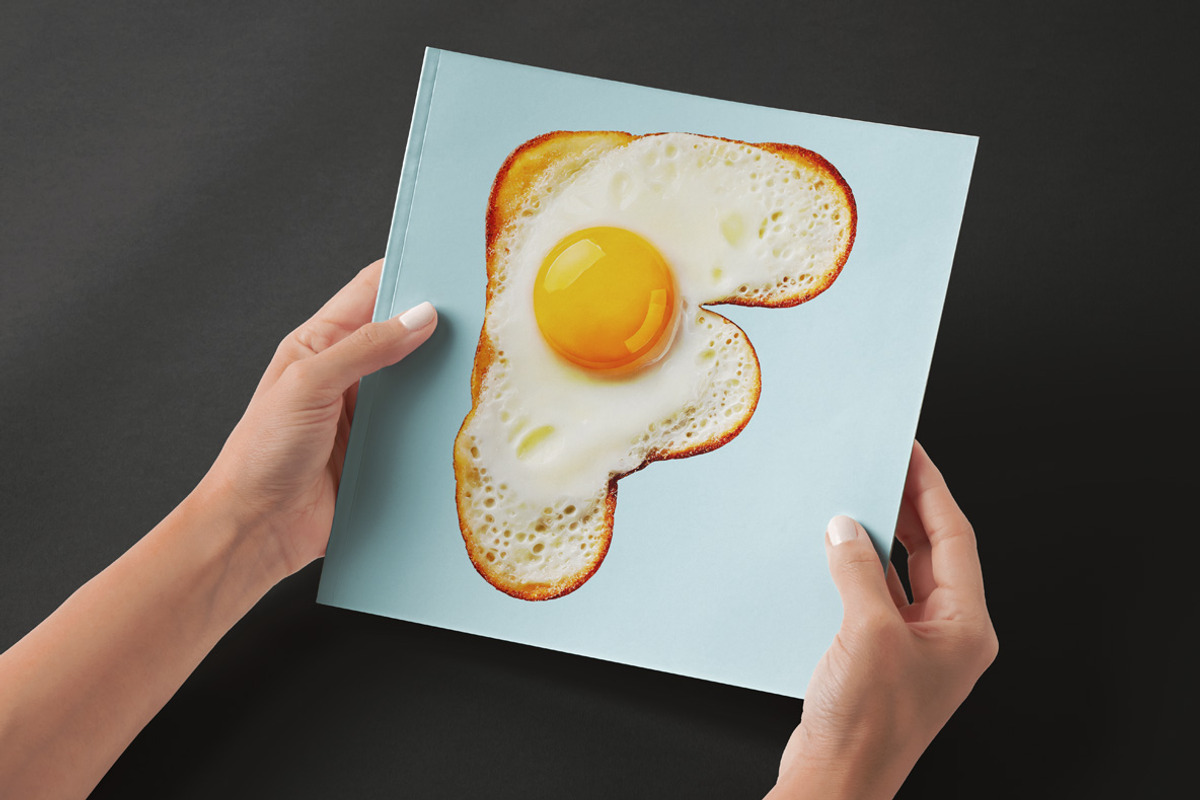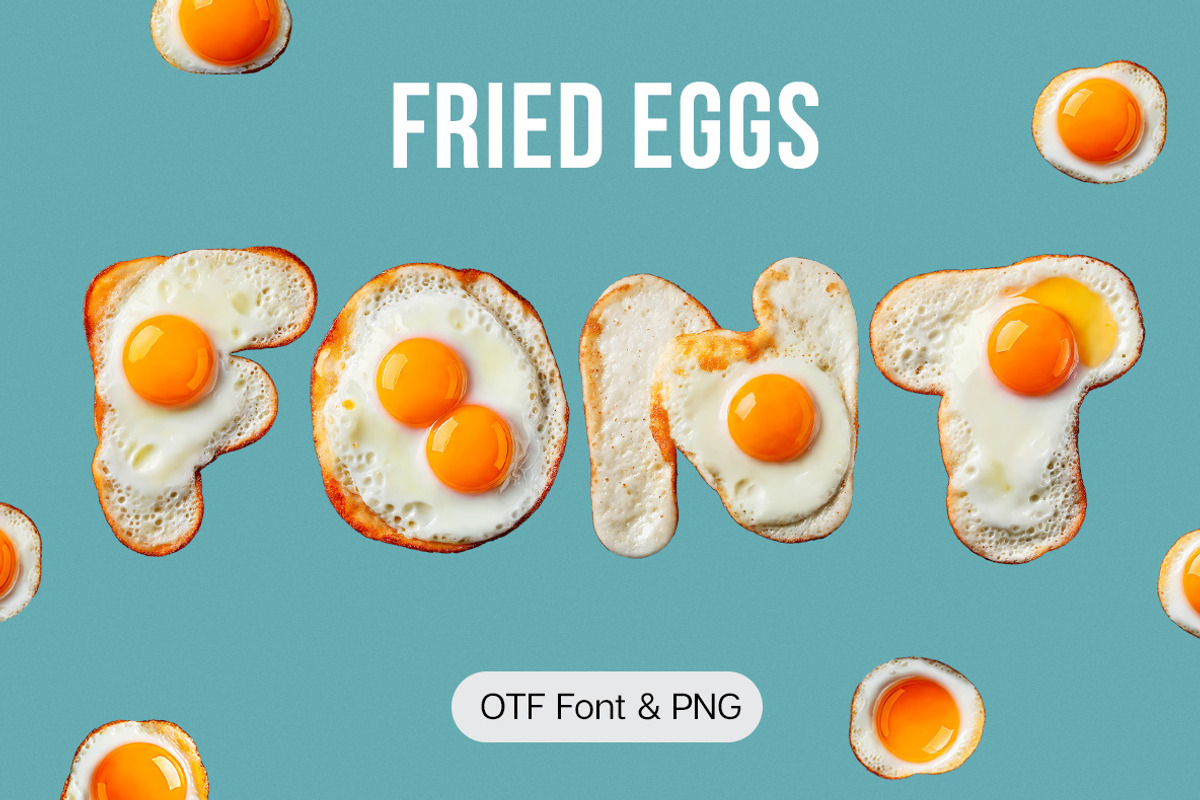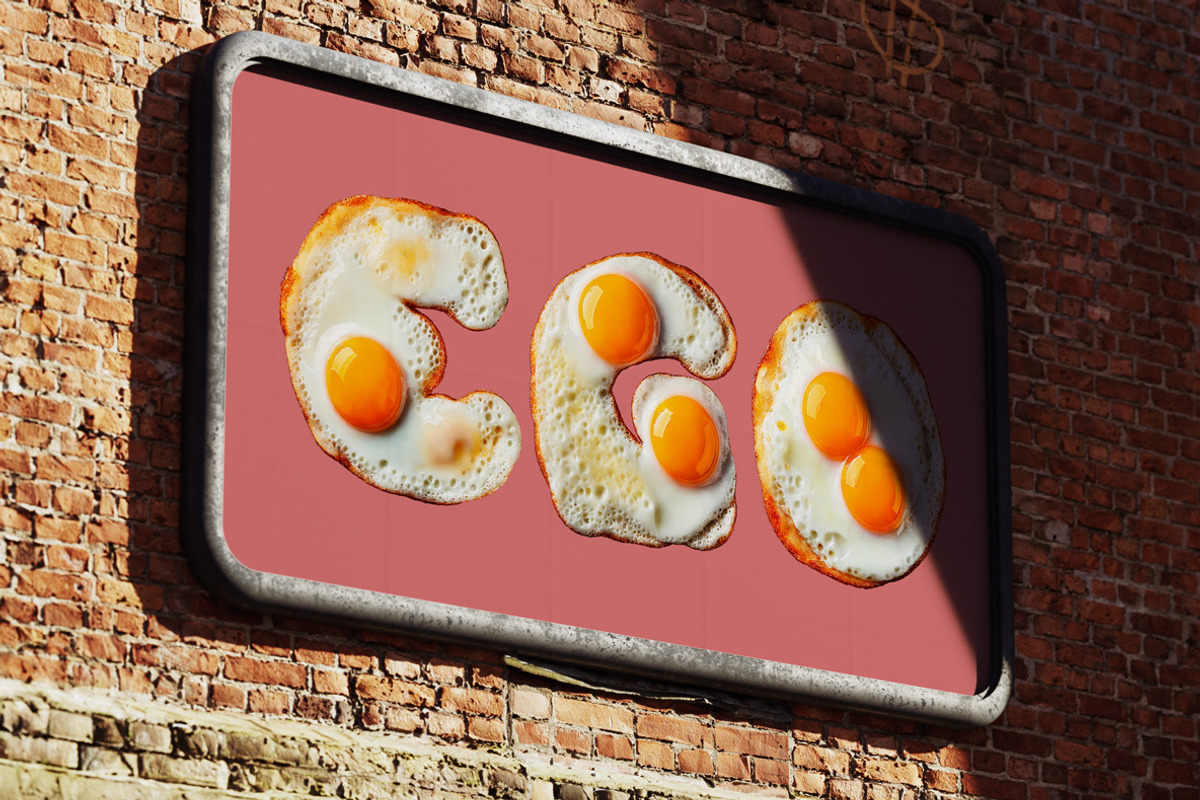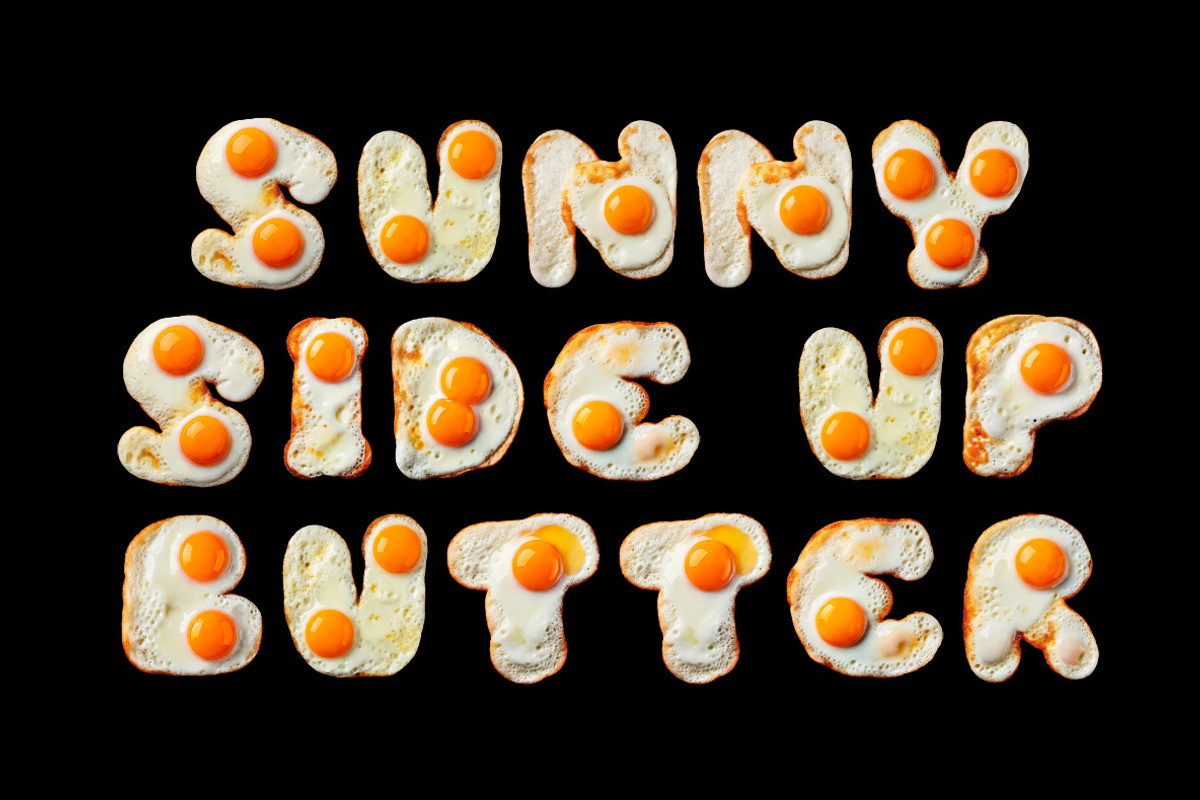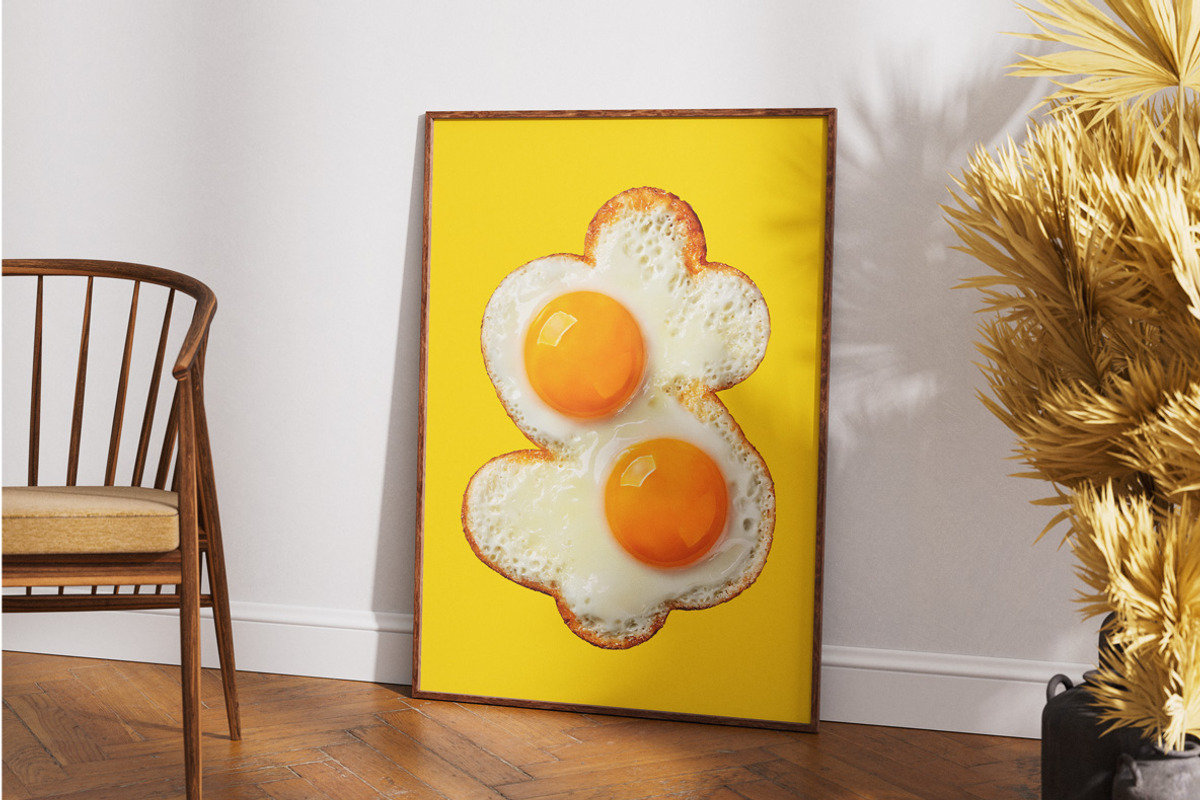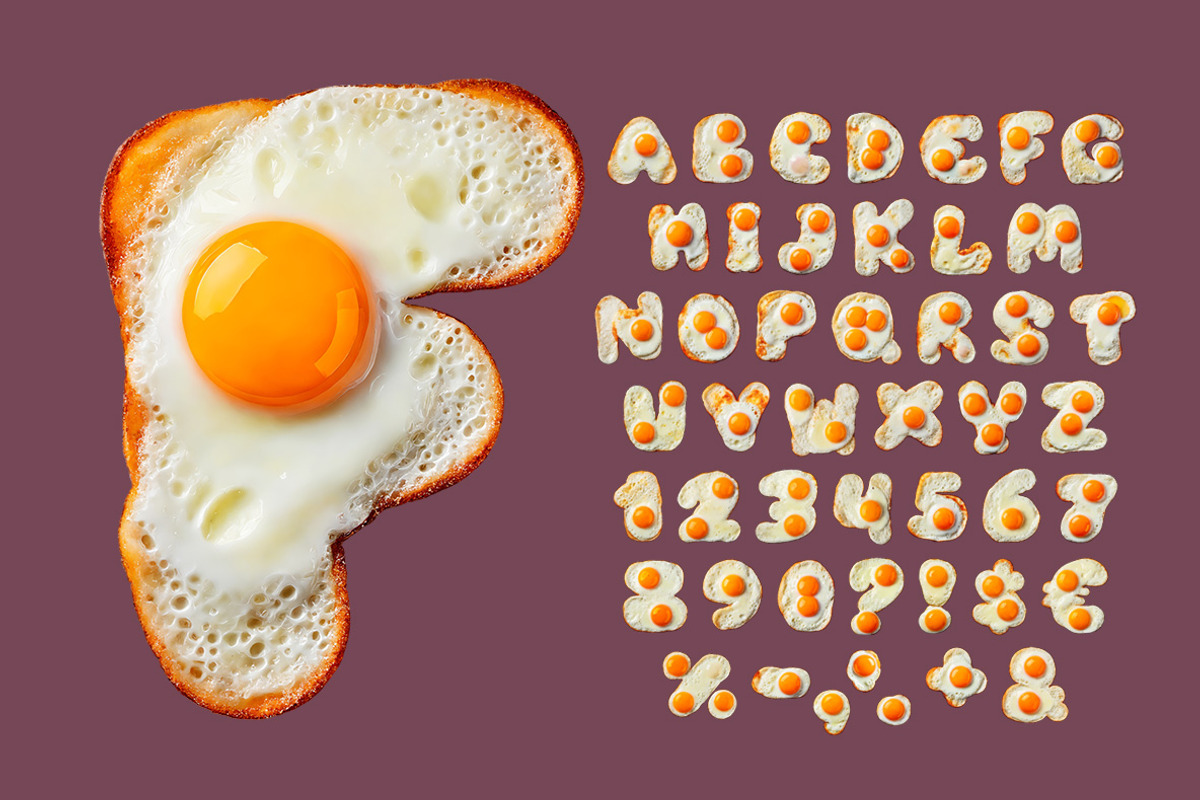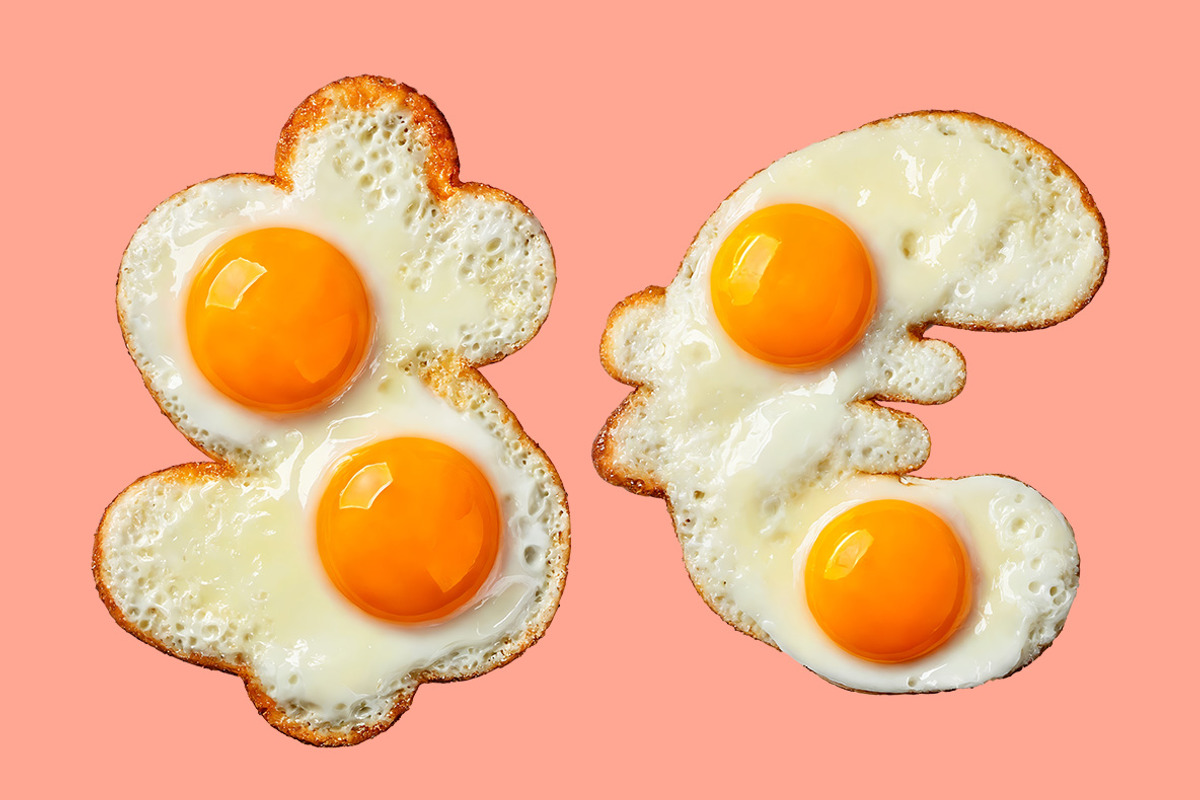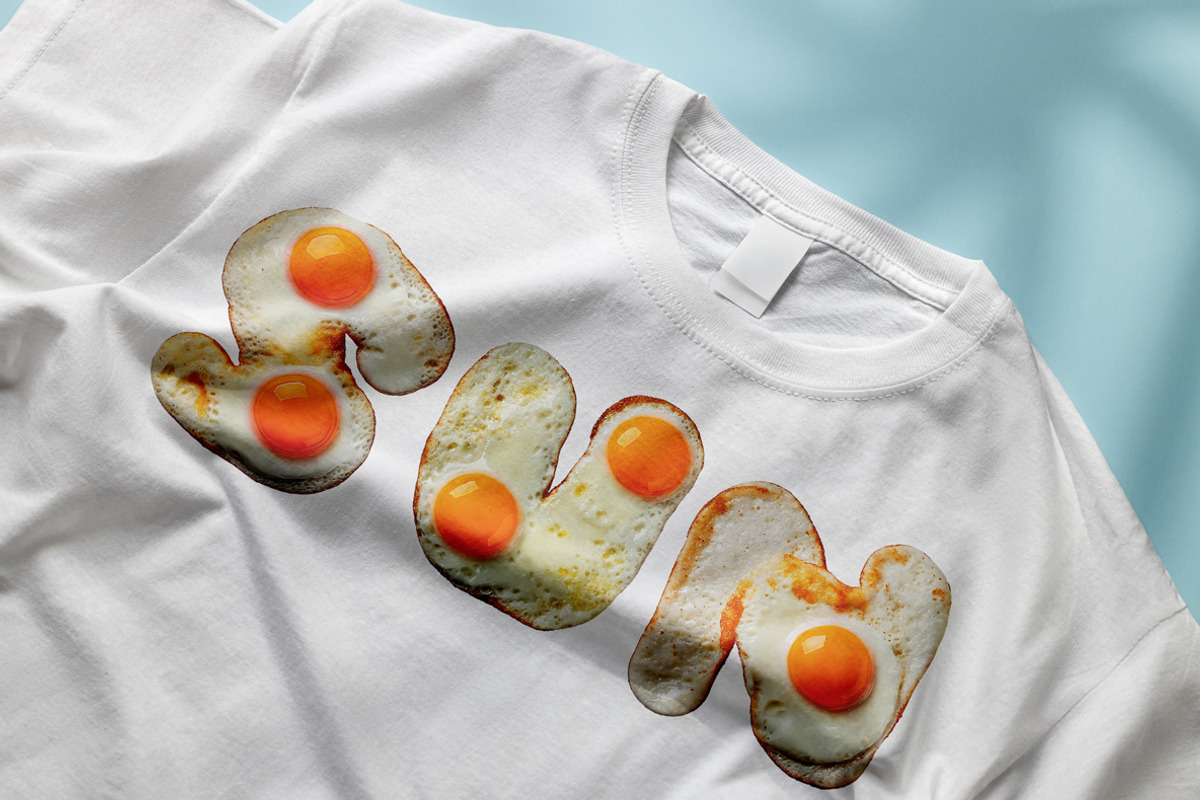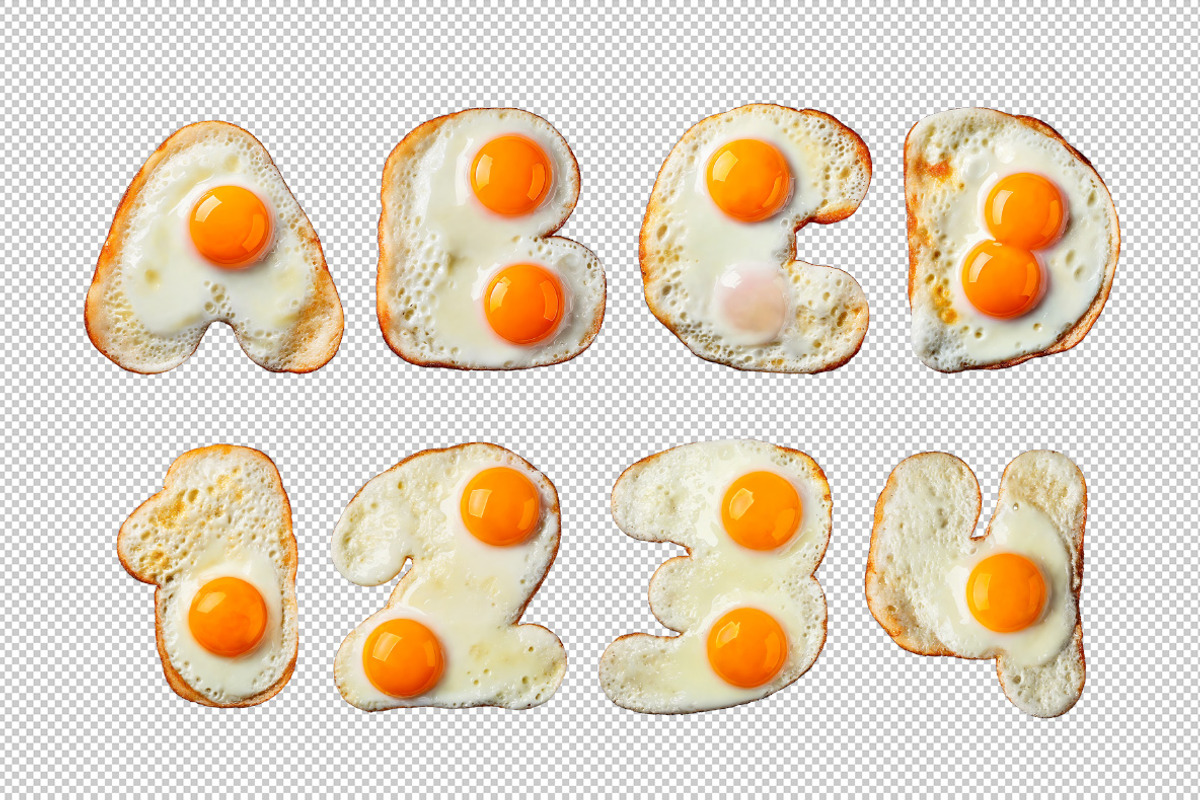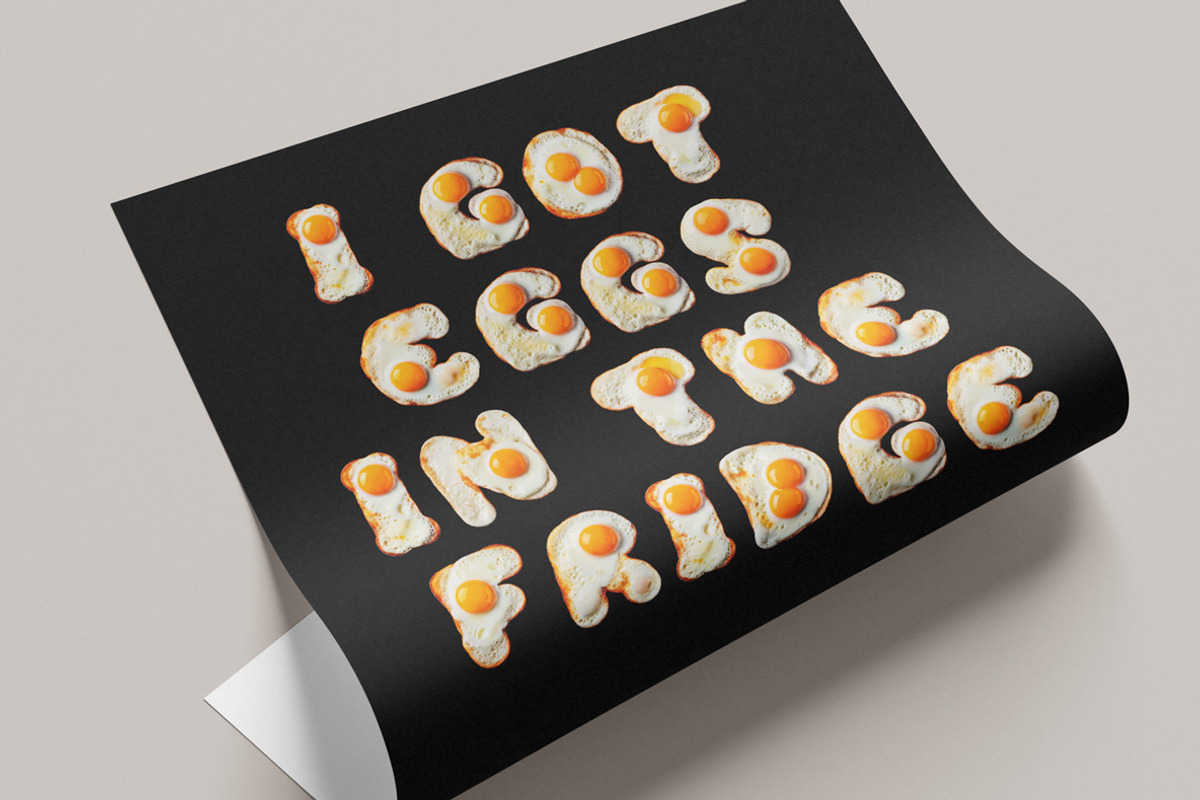
Fried Eggs Font
Fried Eggs Font is a playful, breakfast-inspired typeface that brings the sunny side to your designs! Each letter mimics the look of fried eggs, combining food and art in a fun, quirky style. Perfect for adding a delicious twist to menus, posters, or any morning-themed project, this font is a tasty treat for the eyes.
A high definition OpenType Font. Contains uppercase characters, numerals and basic punctuation. (Draw height roughly 800 pixels). All letters and glyphs that comprises this font you can see on the preview.
- Letters : A B C D E F G H I J K L M N O P Q R S T U V W X Y Z
- Numbers : 0 1 2 3 4 5 6 7 8 9
- Others : ! ? - . ' $ € % &